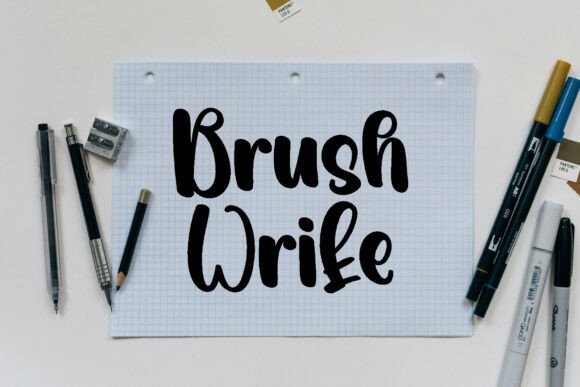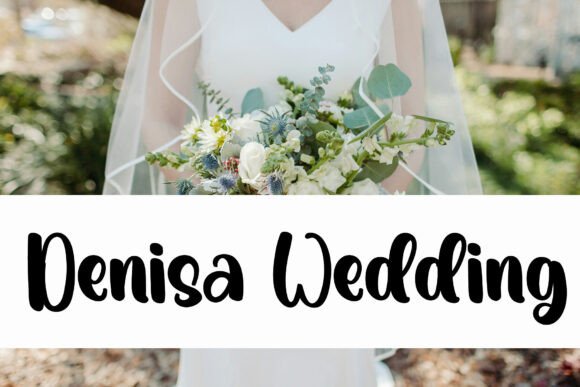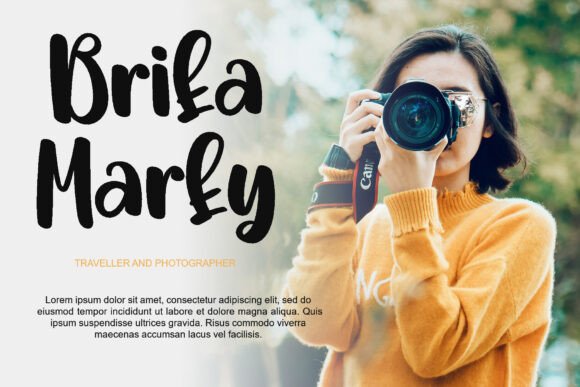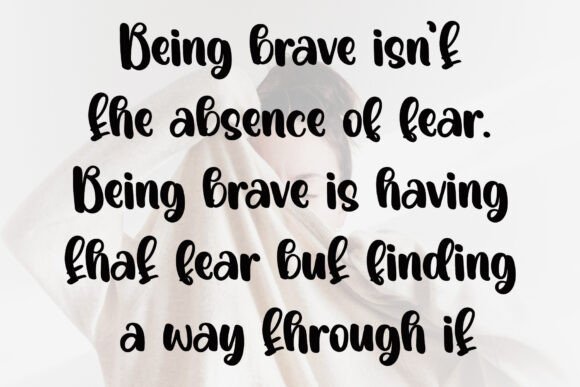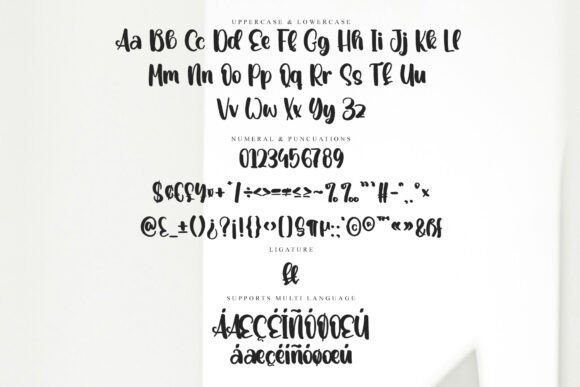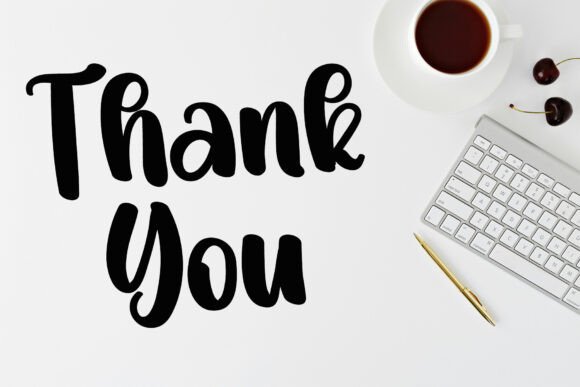
Introduction to Haunted Houses Font
Haunted Houses is a sweet and friendly font.
Key Features of Haunted Houses Font
Why Choose Haunted Houses Font?
Haunted Houses Font offers exceptional quality and versatility, making it a valuable addition to your design toolkit. Whether you’re creating for personal projects or commercial use, Haunted Houses Font delivers professional results.